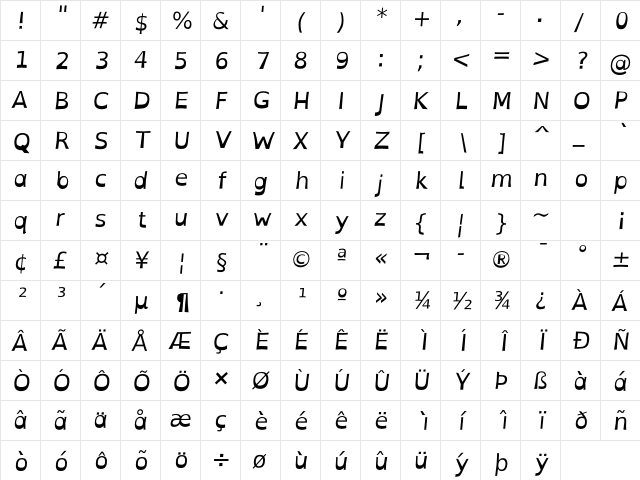
OpenDyslexicAlta Italic
| Designer | Abelardo Gonzalez |
Design Context for OpenDyslexicAlta Typeface
OpenDyslexicAlta takes a measured approach to typography — its balanced proportions and neutral character make it a reliable workhorse for both digital and print work. The dynamic lean of this cut emphasises speed and emphasis in any layout.
Pro Tip: Use OpenDyslexicAlta for emphasis, pull quotes, and subheadings where its slanted energy can add rhythm to the layout.